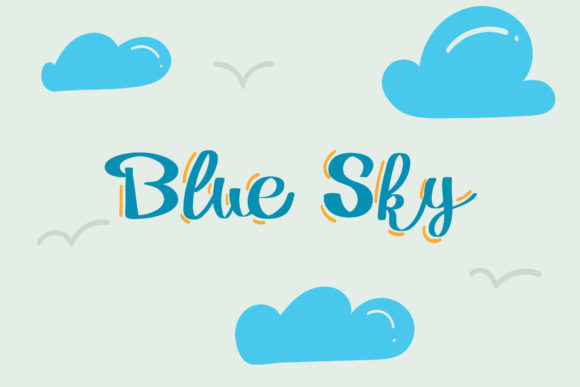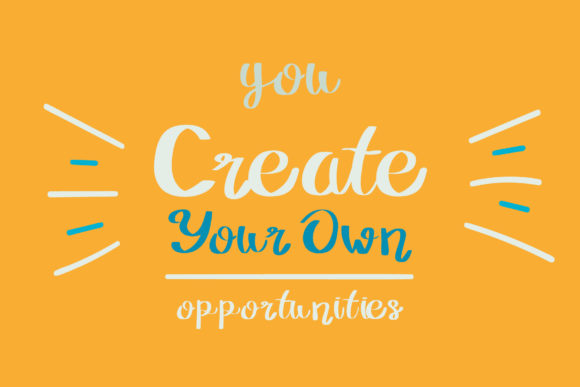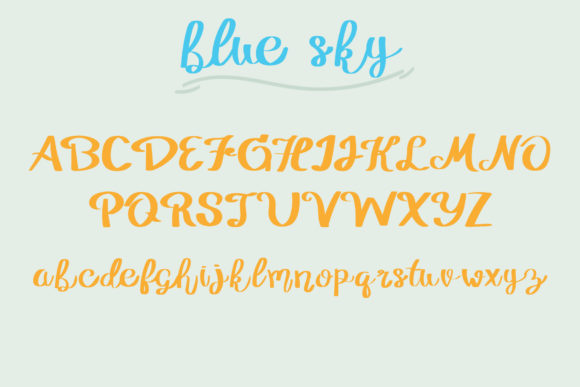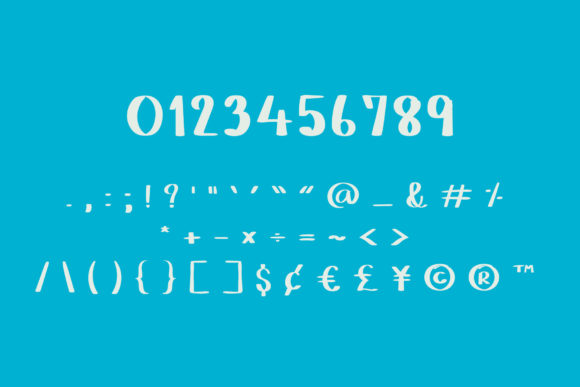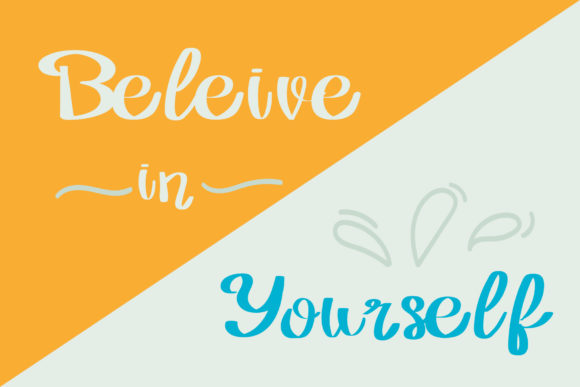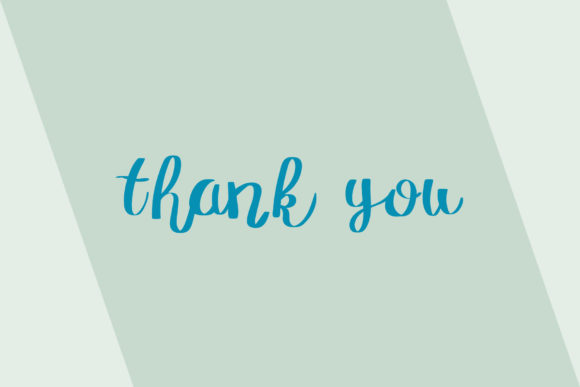
About Blue Sky Font
Blue Sky is a cute and casual handwritten font with an incredibly friendly feel. Blue Sky will look outstanding in any context, whether itβs being used on busy backgrounds or as a standalone headline!